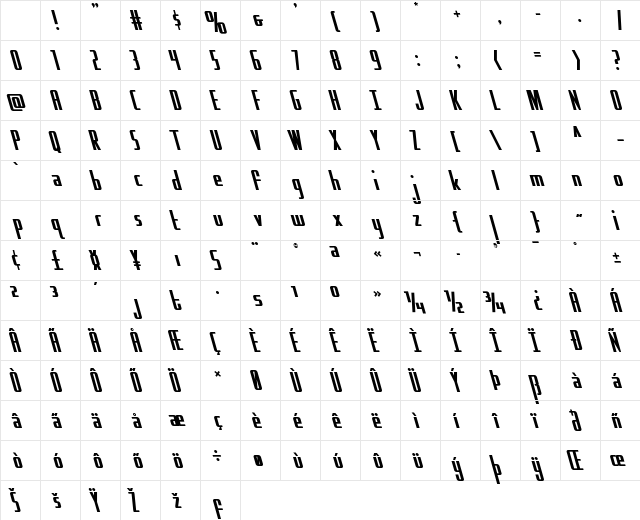
Complete League Sport PERSONAL USE ONLY! Regular glyph index. Displaying only characters natively supported by League Sport PERSONAL USE ONLY! Regular font.
League Sport PERSONAL USE ONLY! brings high-energy athletic personality to the page - its confident, muscular forms are built for impact.
Pro Tip: Use League Sport PERSONAL USE ONLY! in all-caps headlines where its athletic energy can fully express itself. Pair with a solid, simple sans for supporting text.